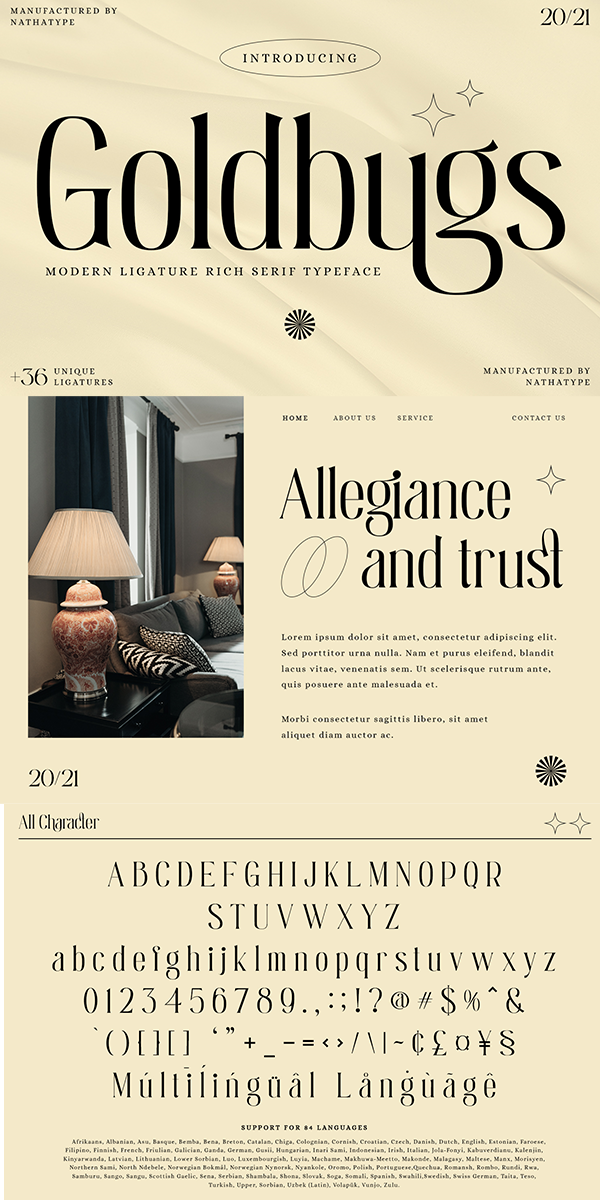
Goldbugs Font
About Goldbugs
Goldbugs-A Serif Font
Goldbugs a timeless serif font. Designed with elegance and modern style. Every letter has a unique and beautiful touch, which will make your design come alive. This font is perfect for quotes, shirt designs, websites, branding, children’s designs, svg designs, blogs, logos, invitations and more!
Our font always includes Multilingual Support to make your branding reach a global audience.